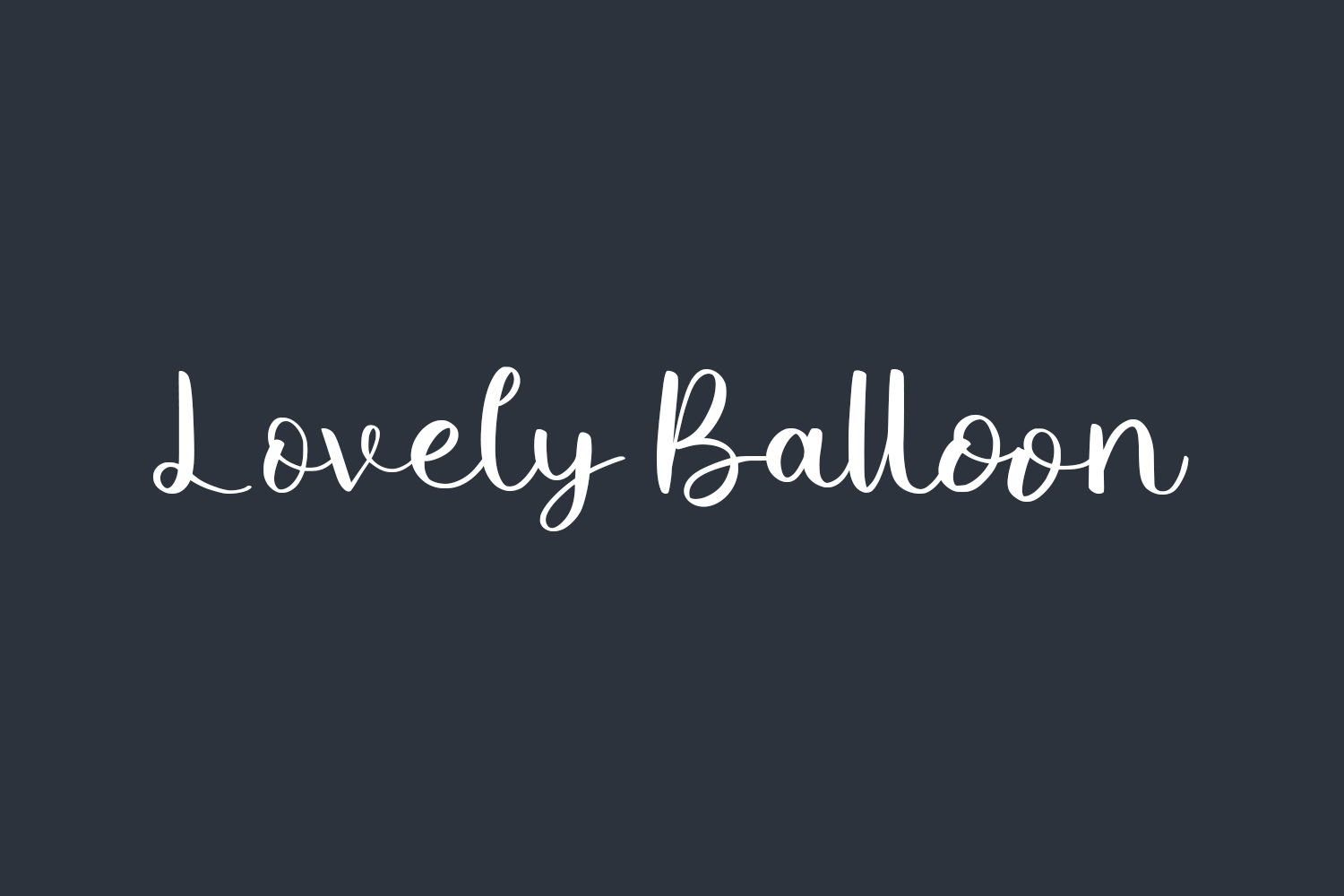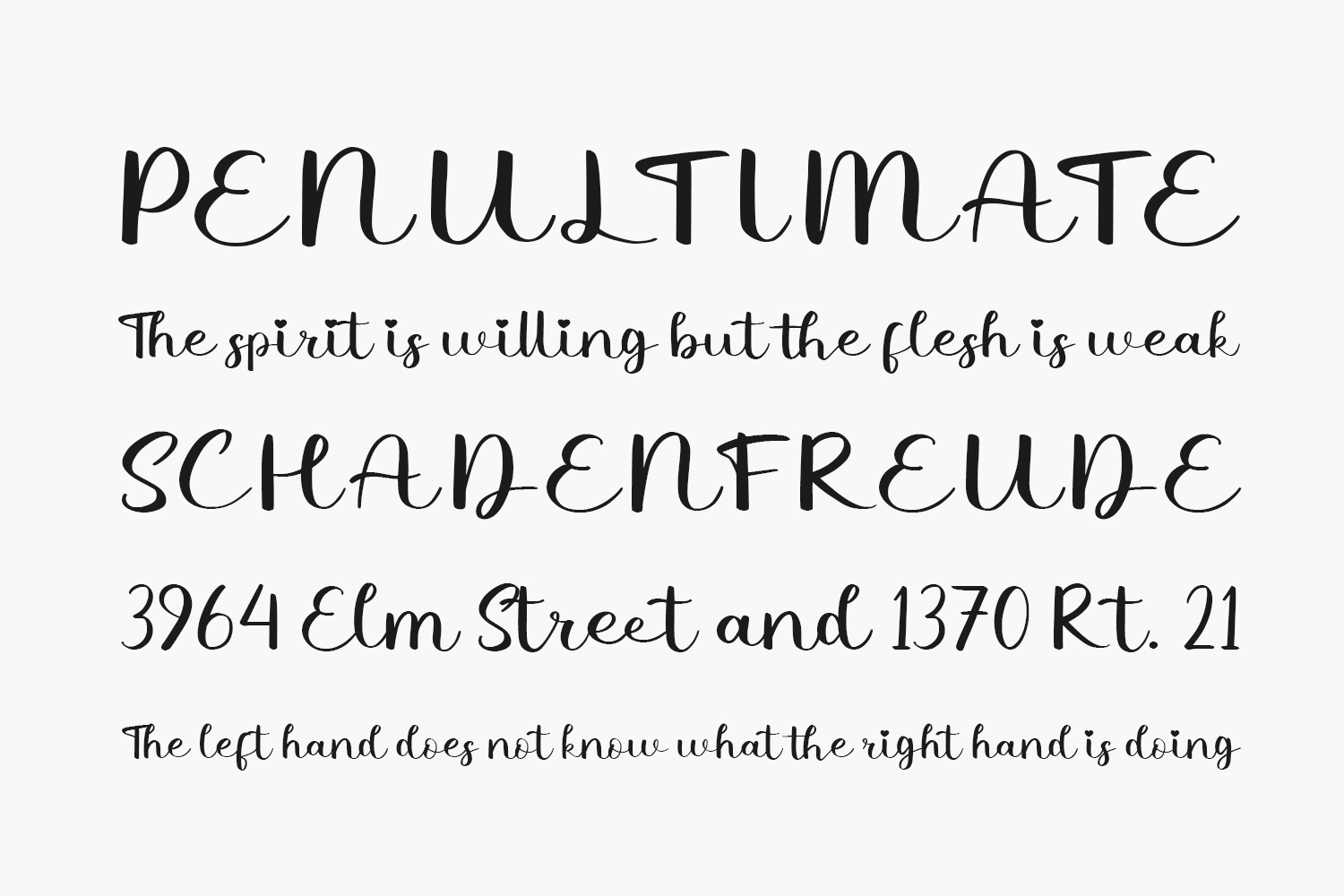
Embrace the charm of Lovely Balloon Free Font, a romantic and sweet handwritten typeface where characters gracefully dance along the baseline. Infuse a touch of luxury into your design projects with this delightful font that promises to elevate your creative endeavors. Lovely Balloon Free Font was designed by AEN Creative Studio and is free for personal use only. Please purchase the full version for commercial use.